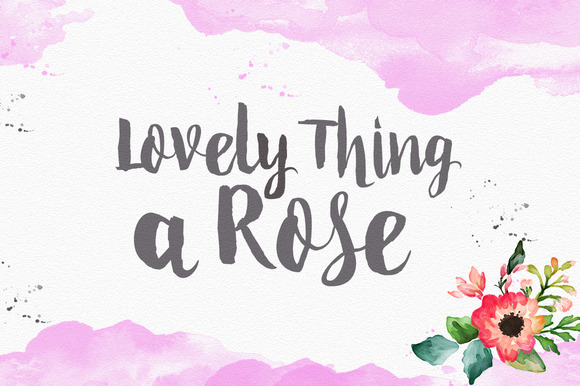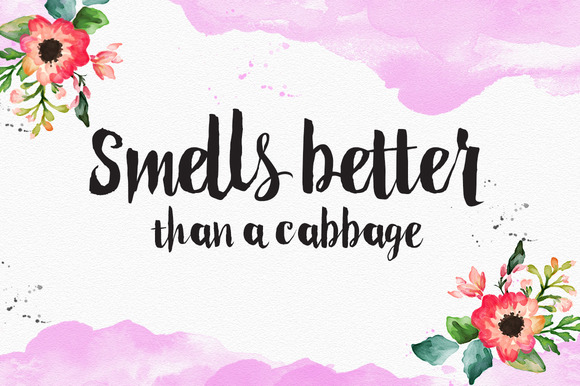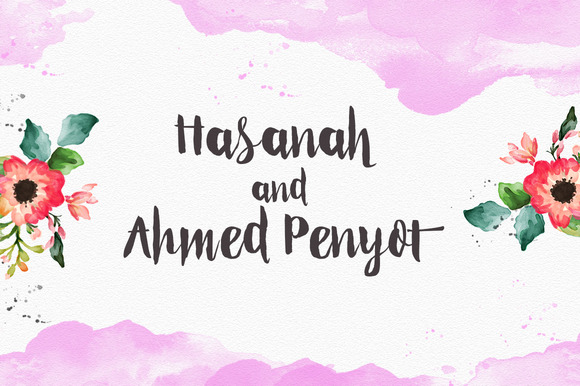
Unleash Your Creativity with Breakout Font: The Ultimate Hand-Drawn Typeface
Are you tired of using the same old fonts for your design projects? Do you want to add a unique touch to your creations and make them stand out from the crowd? Look no further than Breakout Font, a one-of-a-kind hand-drawn typeface that is sure to take your designs to the next level.
What is Breakout Font?
Breakout Font is a carefully crafted, hand-drawn typeface that boasts a distinctive and stylish look. Its unique design makes it perfect for a wide range of applications, from headings and logos to invitations, t-shirt designs, greeting cards, posters, labels, book covers, brochures, and more.
Why Choose Breakout Font?
So, what sets Breakout Font apart from other typefaces? Here are just a few reasons why designers and crafters are falling in love with this amazing font:
- Unique and eye-catching design: Breakout Font’s hand-drawn style gives it a distinctive look that is sure to grab attention and make your designs stand out.
- Versatility: Whether you’re working on a logo, invitation, or poster, Breakout Font is the perfect choice. Its flexibility makes it suitable for a wide range of applications.
- High-quality design: Breakout Font is meticulously crafted to ensure that it looks great in any context. Its high-quality design makes it perfect for both print and digital applications.
Breakout Font is incredibly versatile, and its uses are endless. Here are a few ideas to get you started:
- Logos and branding: Use Breakout Font to create a unique and memorable logo for your business or brand.
- Invitations and events: Add a touch of elegance and sophistication to your invitations and event materials with Breakout Font.
- T-shirt designs and apparel: Breakout Font is perfect for creating eye-catching t-shirt designs and other apparel.
- Posters and flyers: Use Breakout Font to create bold and attention-grabbing posters and flyers.
- Book covers and publishing: Breakout Font is a great choice for book covers, journals, and other publishing materials.
| Font Name | Breakout Font |
| Author | Alqawoms |
Breakout Font is a game-changing hand-drawn typeface that is sure to take your designs to the next level. Its unique and eye-catching design, versatility, and ease of use make it the perfect choice for designers and crafters. Whether you’re working on a logo, invitation, poster, or any other design project, Breakout Font is the perfect choice. So why wait? Download Breakout Font today and unleash your creativity!